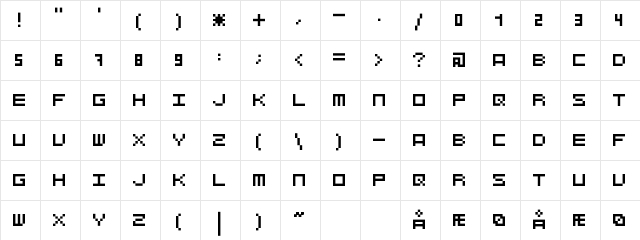
FivePX 5px
Style: 5px
Design Context for FivePX
FivePX is a composed and adaptable typeface that performs quietly and consistently across a wide range of design contexts.